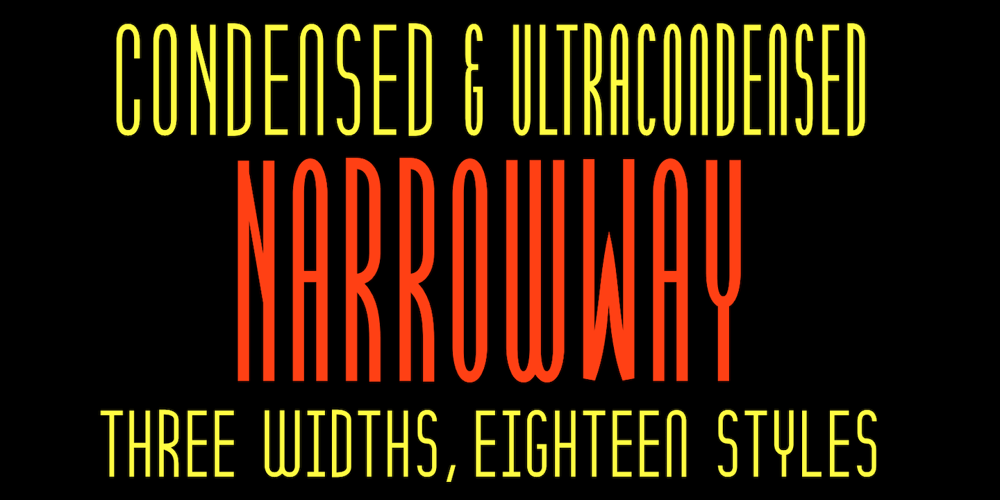
Narrow Way Font Family was designed by Robert Schenk and published by Ingrimayne Type. Narrow Way contains 18 styles and family package options. NarrowWay is a family of 18 condensed and ultra-condensed sans-serif typefaces. The family started with the ultra-condensed widths, then the condensed and regular widths (the regular is still quite condensed) were added. All widths have three weights and each weight has an italics style. These 18 styles lack a true lowercase but rather have a set of alternative characters, some based on lower-case forms, on the lower-case keys. Some alternative letters can be reached with the OpenType feature of stylistic sets. The character spacing in most of the styles is quite loose and it can be tightened with an application’s character spacing if needed.These typefaces are display faces that can be useful for squeezing tall lettering into tight spaces. They are not readable at small point sizes.